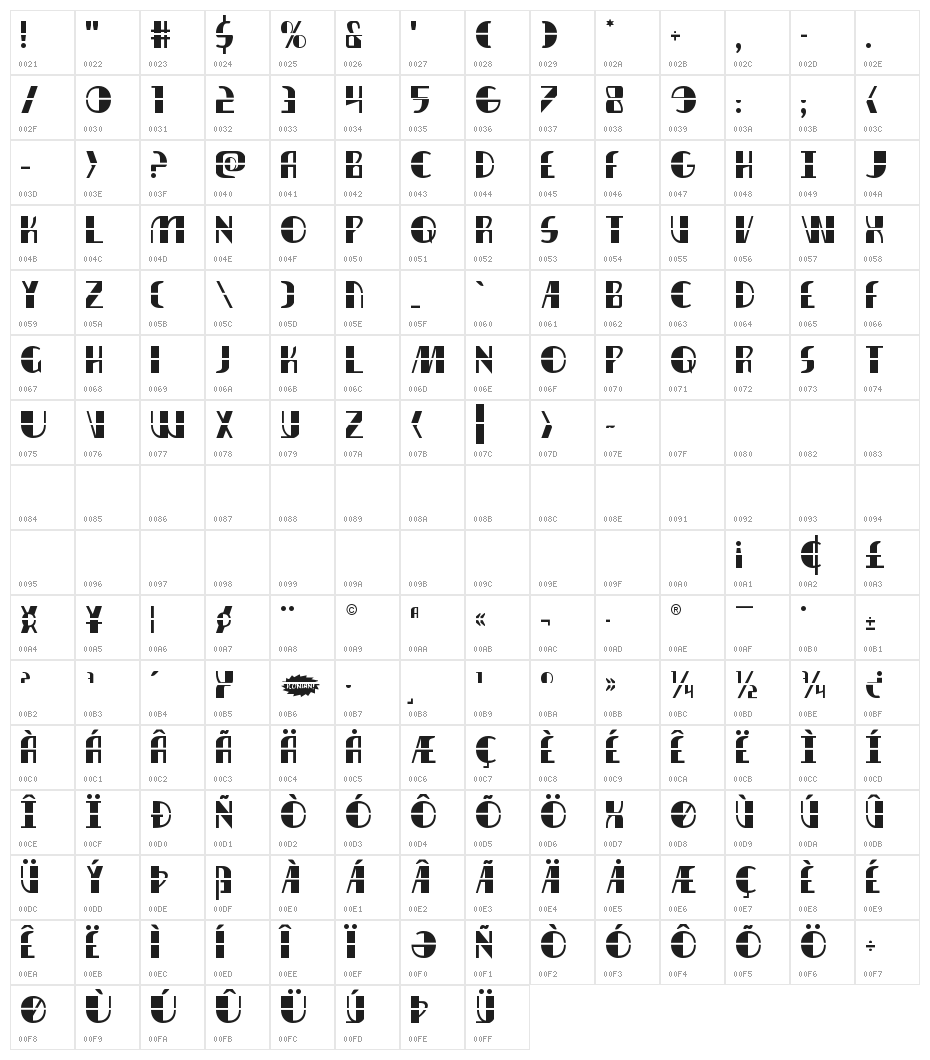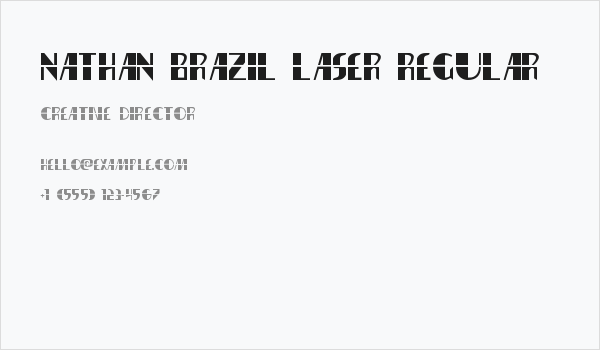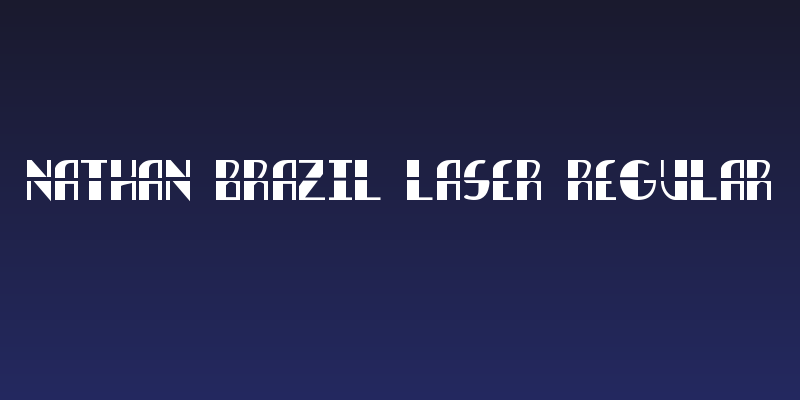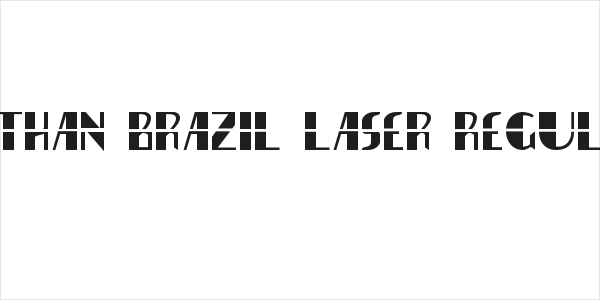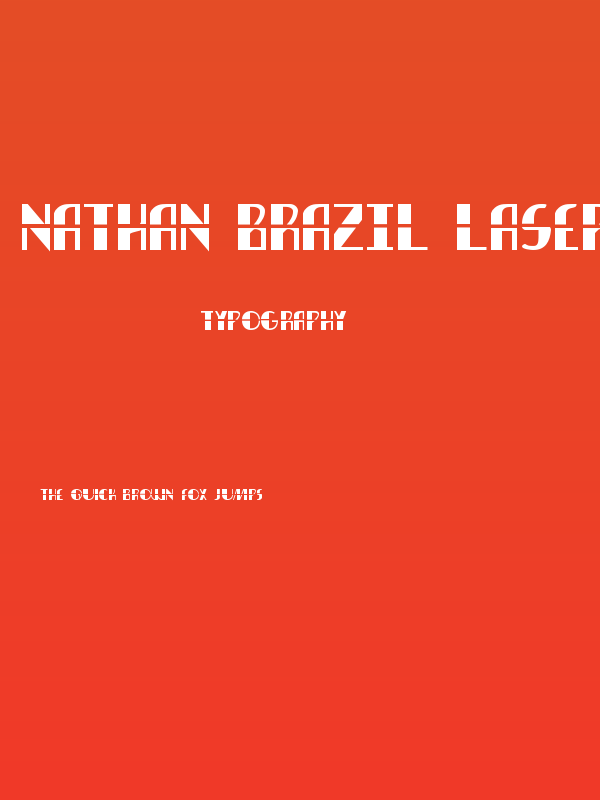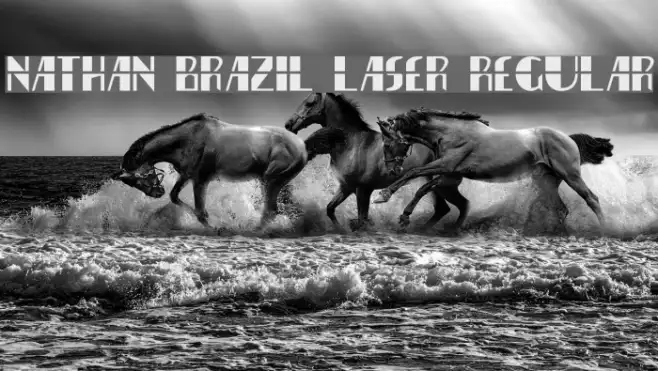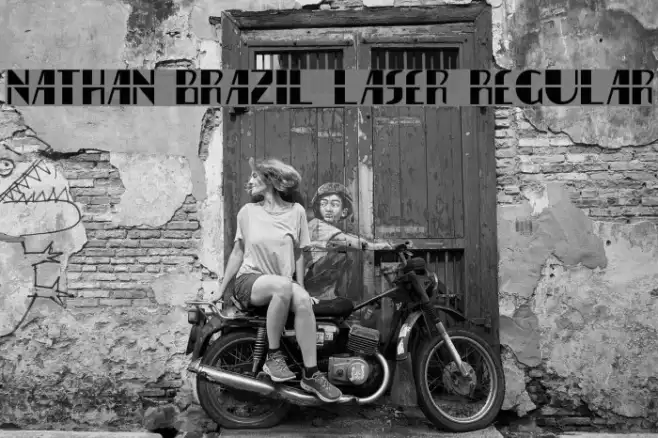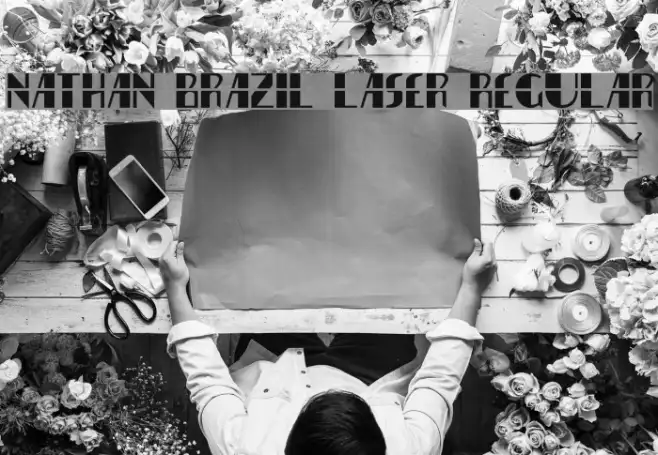
Nathan Brazil Laser Regular Font
Nathan Brazil Laser Regular Description
This font features a bold, geometric design with a futuristic aesthetic. The characters are constructed with sharp angles and clean lines, creating a sense of precision and modernity. The uppercase letters are particularly striking, with a unique interplay of positive and negative space that gives them a dynamic, almost mechanical appearance. The numbers and special characters maintain this cohesive style, ensuring a consistent look across all text. This font is ideal for projects that require a strong visual impact and a contemporary feel.